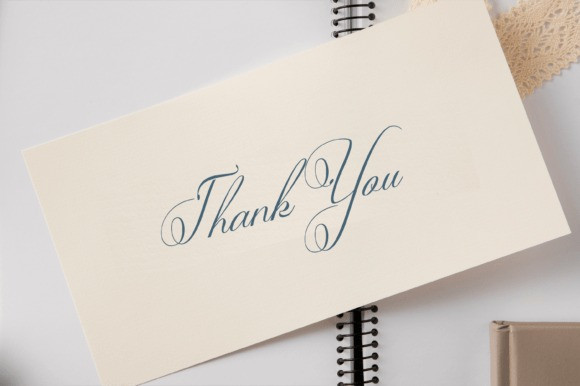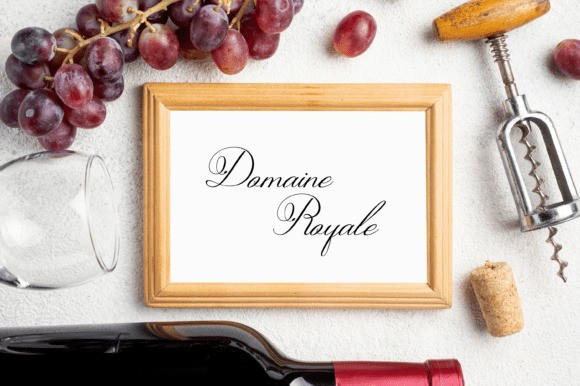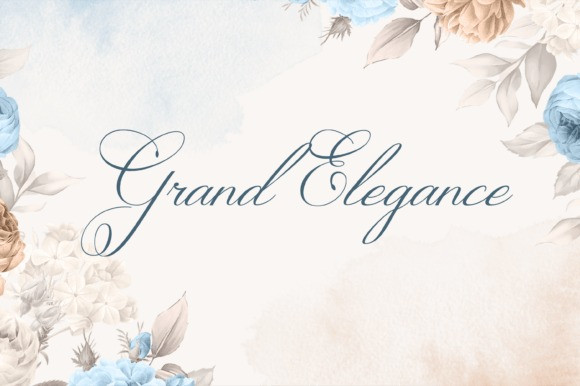
Grand Elegance Font
Grand Elegance Font is a timeless calligraphy script font with graceful curves and a luxurious touch. Designed to bring sophistication and refinement, this font is perfect for projects that need a sense of classic beauty and exclusivity. Ideal for weddding invitations, branding, labelling, certificates and so much more.